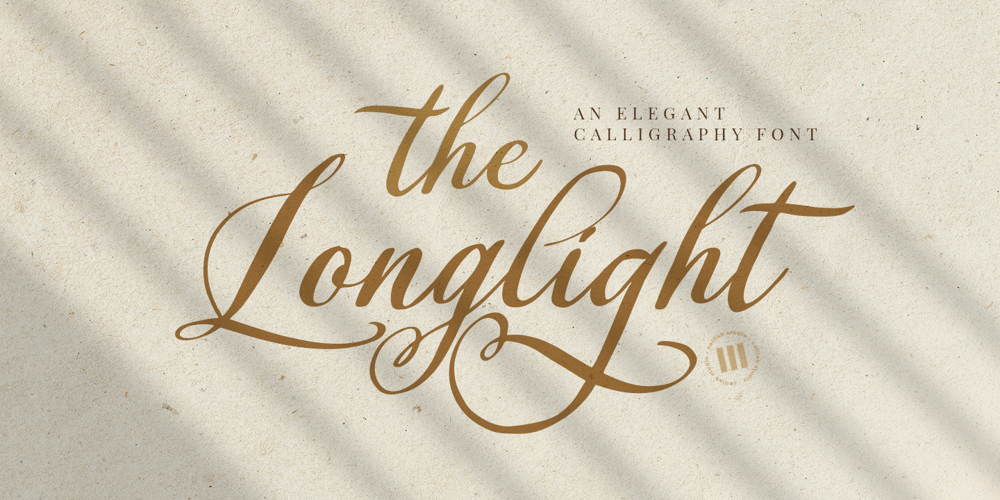
The Longlight
The Longlight font
The Longlight Font Family was designed by Muh. Aswar and published by Colllab Studio. The Longlight contains 1 styles and family package options. Presenting The Longlight! An Elegant Calligraphy Font with some alternates and ligatures. This font made with the perfect combining of each character. It looks original and can be used for all your project needs. Each glyph has its own uniqueness and when meeting with others will provide dynamic and pleasing proximity. This font can be used at any time and any project. You can see in the presentation picture above, The Longlight looks elegant and stylish on design projects.So, The Longlight can’t wait to give its touch to all your design projects such as quotes, poster design, personal branding, promotional materials, website, logotype, product packaging, etc.Besides that, The Longlight also has some ligature that gives a surprise when you type certain characters combining. The ligatures are ee, ff, gg, gg1, ii, jj, ll, ll1, mm, nn, oo, pp, ss, tt, tt1, pp, and yy.WHAT’S INCLUDED?1. The Longlight • The first version comes with uppercase, lowercase, ligatures, numeral, punctuation, symbols, and Standard Latin Multilingual Support (Afrikaans, Albanian, Catalan, Danish, Dutch, English, French, German, Icelandic, Indonesian, Italian, Malay, Norwegian, Portuguese, Spanisch, Swedish, Zulu, and More).2. The Longlight Alternate • Included some alternates: f, g, i, j, l, p, s, t, y, and g.A Million ThanksColllab Studio